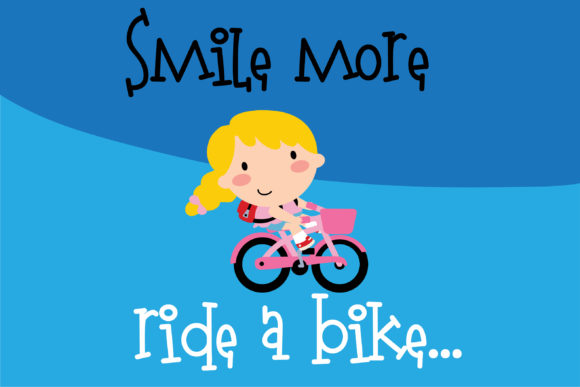
Introduction to Playgroup Font
Remember the joy of crafting a handmade card for your child’s birthday, only to have it ruined by a messy font? Those days are behind you with the introduction of the enchanting Playgroup Font. This delightful serif font is a game-changer for designers and crafty enthusiasts alike, offering a perfect blend of whimsy and sophistication.
Imagine having a font that can elevate your creative projects with its playful touch, from invitations to party decorations. With the Playgroup Font, you can add a personal touch to your designs without compromising on quality. Whether you’re working on a high-end project or a simple DIY task, this font is sure to bring a smile to your face and a touch of magic to your work.
What makes the Playgroup Font truly valuable is its high-quality design and the fact that it’s available for free download, making it an excellent design resource for anyone looking to add a touch of whimsy to their work.
Key Features of Playgroup Font
- High Quality Design: Playgroup Font is a carefully crafted design resource, perfect for any creative project that requires a unique and eye-catching touch.
- Unique Characteristics: Playgroup Font features a distinctive and playful style, with intricate details and subtle nuances that set it apart from other fonts.
Honest Review: Playgroup Font
As a designer, I’m always on the lookout for high-quality, free design resources to elevate my creative projects. The Playgroup Font is one such resource that caught my attention. Here’s my honest review.
- ✨ The font’s playful, handwritten feel makes it perfect for projects that require a friendly, approachable tone.
- ✨ The font is highly customizable, allowing me to easily adjust the style and layout to fit my design needs.
- ⚠️ The font may not be suitable for projects that require a transparent background, as it can be quite busy.
Overall, I’m impressed with the Playgroup Font. It’s a great addition to my design resource library, and I’m excited to use it in future projects. With a little creativity and experimentation, I’m confident that I can work around its limitations and achieve the desired look and feel for my designs.
Playgroup Font is perfect for a variety of creative projects, including digital invitations, social media graphics, and presentations. It’s also a great choice for print materials, such as business cards and brochures.